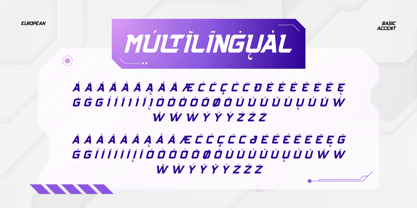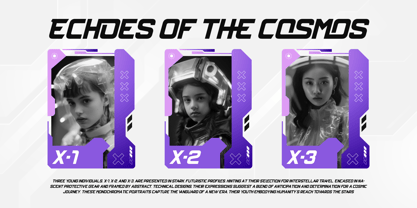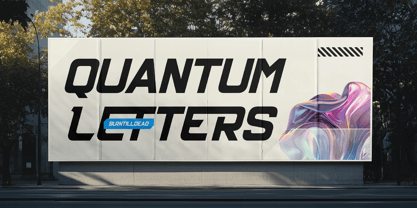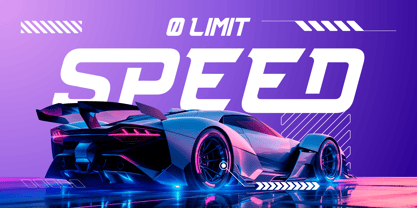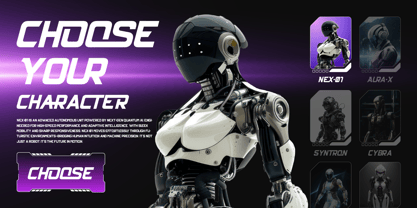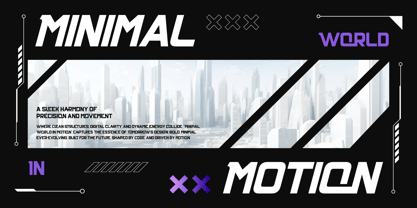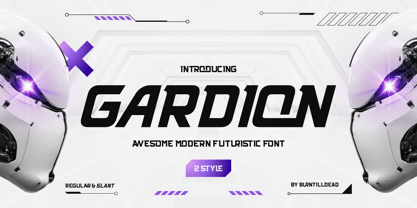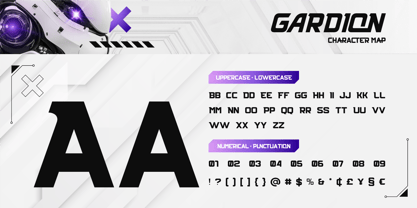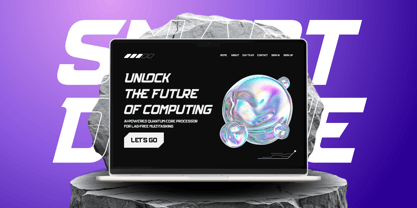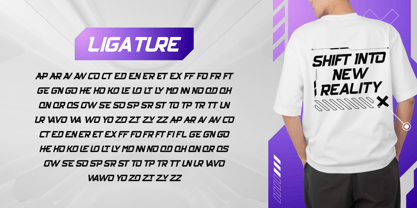
Gardion
The Gardion Font Family was designed by Eric Kurniawan and published by Burntilldead. Gardion contains 2 styles and family package options. More about this family
Introducing Gardion, an awesome futuristic font designed to bring a cutting edge vibes. With its sharp geometric shapes and modern aesthethics. Come with 2 styles: Regular and Slant. The regular style look strong and steady, make it look futuristic presence. Slant is dynamic and fast paces, ideal for energetic and action-driven design. Gardion is carefully crafted to eye catching and highly readable, making it a good choice for technology branding, gaming & esport logos, futuristic UI/UX, space theme, sci-fi posters, automotive design, and more.
Features:
• Uppercase & Lowercase (All Caps)
• Number
• Punctuation
• Alternates
• Ligatures
• Multilingual